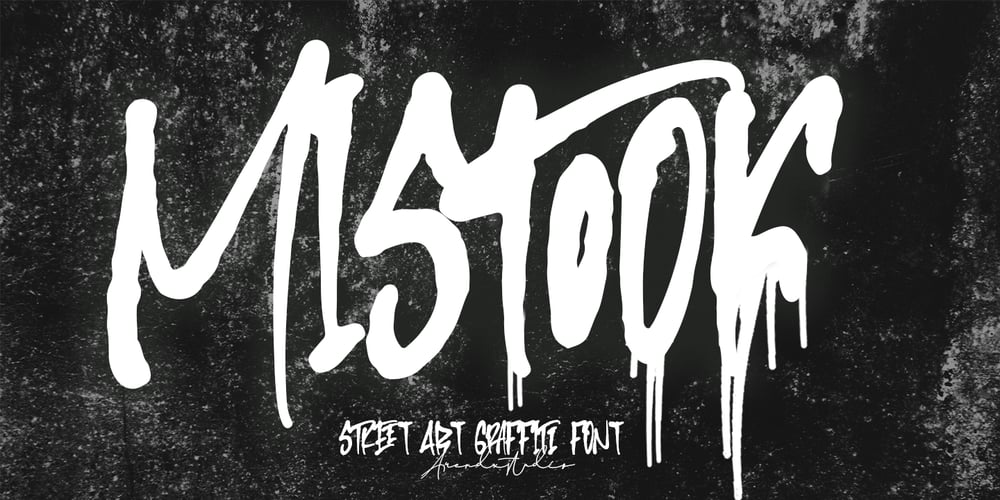
Mistook
Mistook font
Mistook Font Family was designed by Asep Rendi and published by Arendxstudio. Mistook contains 1 styles and family package options. Mistook – Street Art Graffiti Font is a free style font that has the characteristics of street art that shows freedom and is filled with unique charactersFeatures : • Character Set A-Z • Numerals & Punctuations (OpenType Standard) • Accents (Multilingual characters) • Ligature • AlternateThere it is! I really hope you enjoy it !